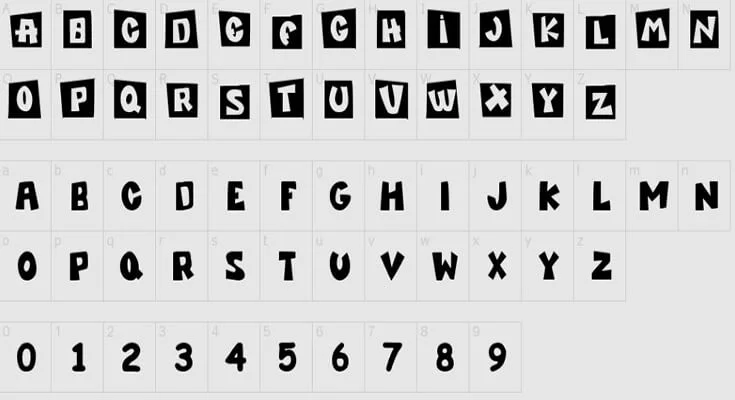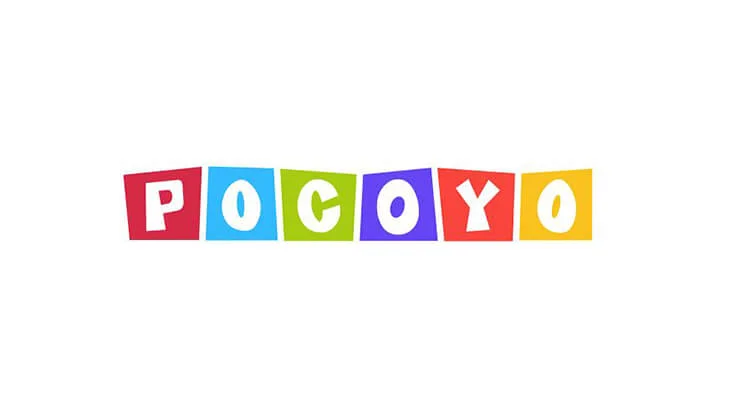
Introducing POCOYO TV Font! POCOYO is a Spanish preschool interactive comedy computer-animated television series first broadcast in 2005.
It is about Pocoyo, a four-year-old boy, interacting with his friends Elly, Pato, Nina, Fred the Octopus, Loula, and Sleepy Bird.
On 12 October 2022, a fifth series was greenlit for 2023 to commemorate Pocoyo’s 20th anniversary. For the first time, five episodes will be combined in live action.
Its rounded shapes and friendly curves exude warmth and approachability, making it a perfect choice for children’s books, educational materials, birthday invitations, and more. The font’s legibility ensures that even the youngest readers can easily recognize and engage with the letters, fostering early literacy skills in an enjoyable manner.
Perfect for your kid-friendly comic book, comic covers, cartoon posters, movie posters, game titles, stationary, school bags, geometry boxes, shopping bags, branding, taglines, etc.
Whether you’re designing a playful logo, crafting a whimsical poster, or creating a memorable social media graphic, this typeface adds a touch of joy and nostalgia to your designs.